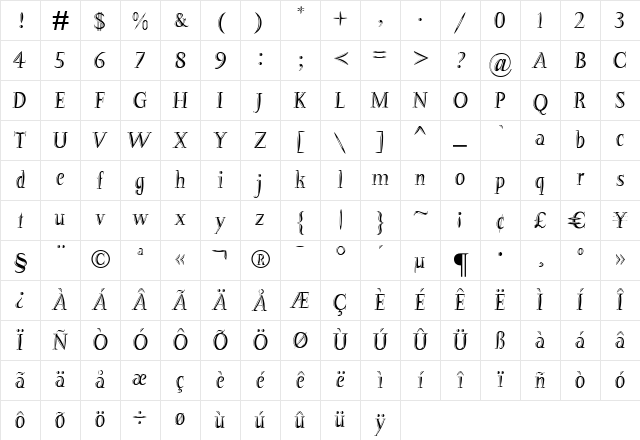
Complete Barracuda Regular Relief Regular glyph index. Displaying only characters natively supported by Barracuda Regular Relief Regular font.
Barracuda Regular Relief is a composed and adaptable typeface that performs quietly and consistently across a wide range of design contexts.
Who designed the Barracuda Regular Relief Regular font?
This font was published by Gert Wiescher, Wiescher-Design, Munich, Germany, www.wiescher-design.de. Check the technical specs section for copyright and designer details.